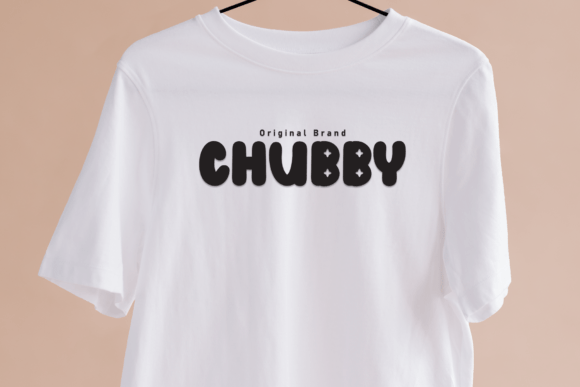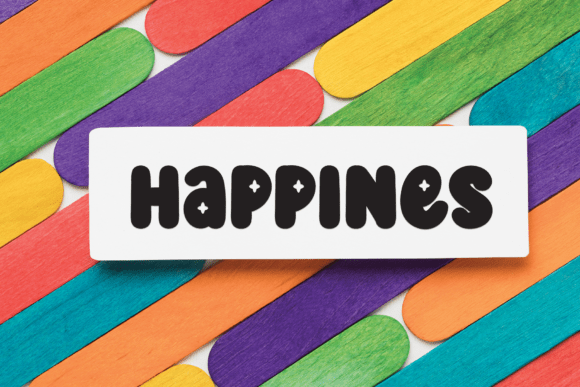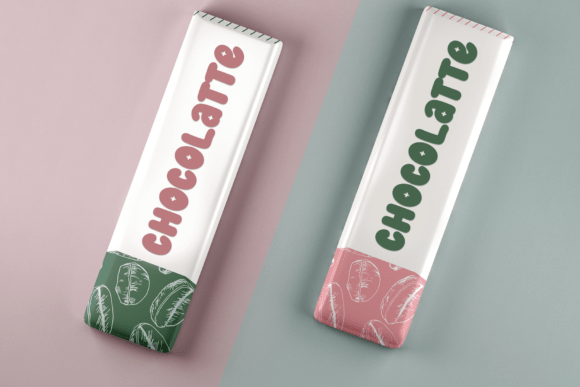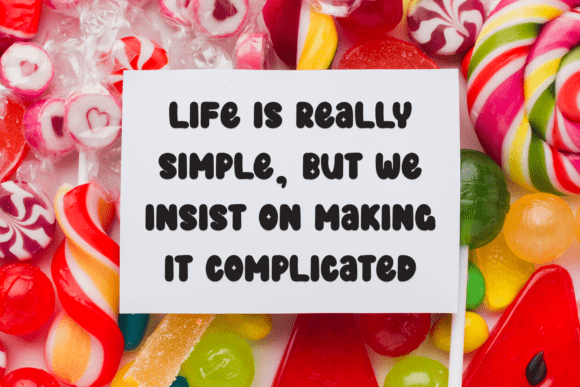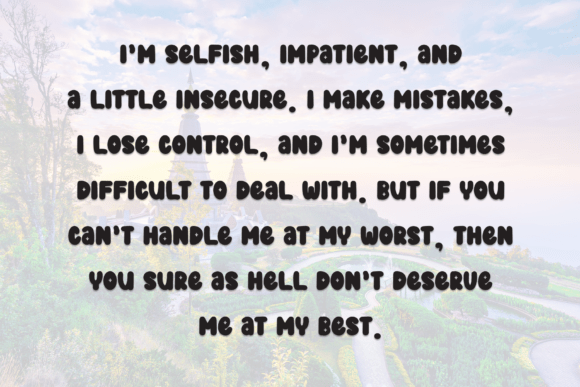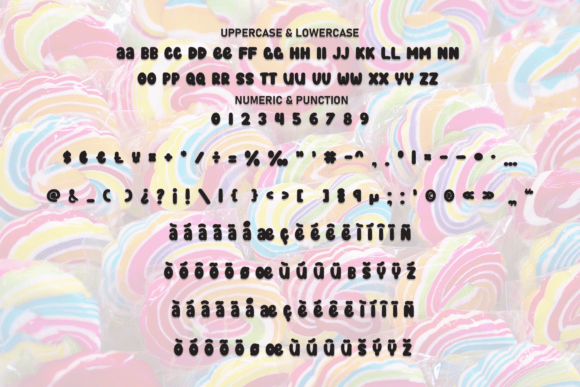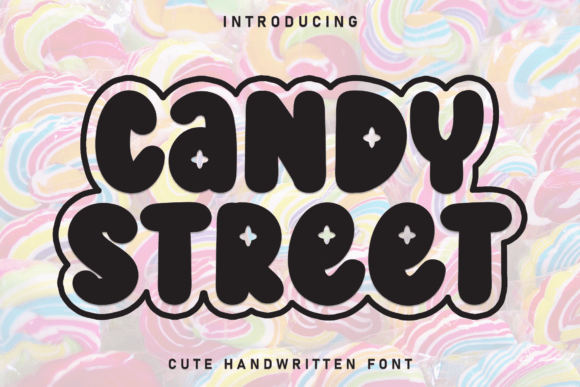
Candy Street Font: The Sweetest Addition to Your Design Collection
Are you tired of using the same old fonts in your designs? Do you want to add a touch of whimsy and charm to your creations? Look no further than the Candy Street Font, a uniquely lovable handcrafted typeface that’s sure to infuse your projects with enticing charm and warmth.
A Font that’s as Bubbly as it is Welcoming
The Candy Street Font is a one-of-a-kind typeface that’s designed to bring a smile to your face. Its endearing, amicable aura is perfect for designing mesmerising wedding invites, emotional greeting cards, or any project that craves a sprinkle of happiness. Whether you’re a designer, crafter, or DIY enthusiast, this font is your secret weapon for creating stunning visual content that stands out from the crowd.
What Makes Candy Street Font So Special?
So, what sets the Candy Street Font apart from other typefaces? For starters, its handcrafted design gives it a unique, organic feel that’s hard to replicate with digital fonts. The result is a font that’s not only visually appealing but also tells a story. Each letter is carefully crafted to evoke a sense of joy and playfulness, making it perfect for projects that require a lighthearted touch.
Elevate Your Designs with Warmth, Charisma, and Lightheartedness
The Candy Street Font is more than just a typeface – it’s a design ingredient that can elevate your projects to the next level. Its distinctive dash of delight adds a touch of warmth, charisma, and lightheartedness to every undertaking, making it perfect for designers and crafters who want to create memorable and engaging visual content. Whether you’re designing a wedding invitation, a greeting card, or a social media graphic, this font is sure to make your project stand out.
Unrivaled in Uniqueness
In a world where fonts are a dime a dozen, the Candy Street Font stands out for its uniqueness. Its sugary sentiment and joyful melody make it a true original, and its handcrafted design ensures that it will never be mistaken for a generic digital font. When you use the Candy Street Font in your designs, you can be sure that you’re adding a touch of personality and whimsy that will set your project apart from the rest.
The Candy Street Font is a versatile typeface that’s perfect for designers and crafters of all levels. Whether you’re a professional designer or a DIY enthusiast, this font is easy to use and can be incorporated into a wide range of projects. From wedding invitations and greeting cards to social media graphics and craft projects, the Candy Street Font is the perfect addition to your design collection.
Tips for Using the Candy Street Font
So, how can you make the most of the Candy Street Font in your designs? Here are a few tips to get you started:
- Use it for headings and titles to add a touch of whimsy and charm
- Pair it with other fonts to create a unique and eye-catching design
- Use it for body text to add a touch of personality to your content
The Candy Street Font is a uniquely lovable handcrafted typeface that’s sure to infuse your designs with enticing charm and warmth. Its endearing, amicable aura makes it perfect for designing mesmerising wedding invites, emotional greeting cards, or any project that craves a sprinkle of happiness. With its distinctive dash of delight, this font is sure to elevate every undertaking and make your artistic endeavours stand out from the crowd.